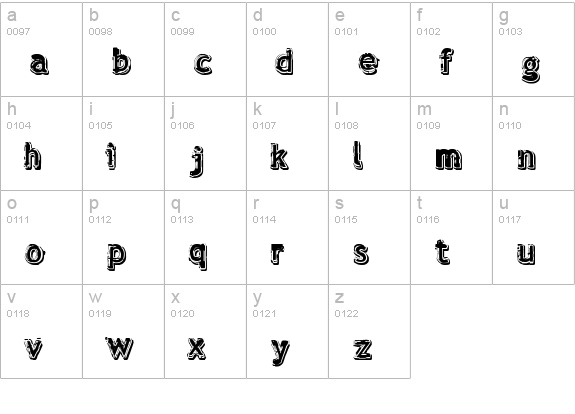
Verdy Évolution is a stunning and versatile font that exudes elegance and modernity. With its sleek lines and sophisticated design, this typeface is perfect for creating eye-catching designs for various projects. Whether you're working on branding, editorial design, or web graphics, Verdy Évolution is sure to elevate your work to the next level. What sets Verdy Évolution apart is not only its impeccable aesthetics but also the fact that it is completely free to use. That's right, this beautiful font is freely available to download at FontsMarket.com, making it accessible to designers and creatives of all levels. Say goodbye to expensive font licenses and hello to endless creative possibilities with Verdy Évolution. Download it now and start creating stunning designs effortlessly.